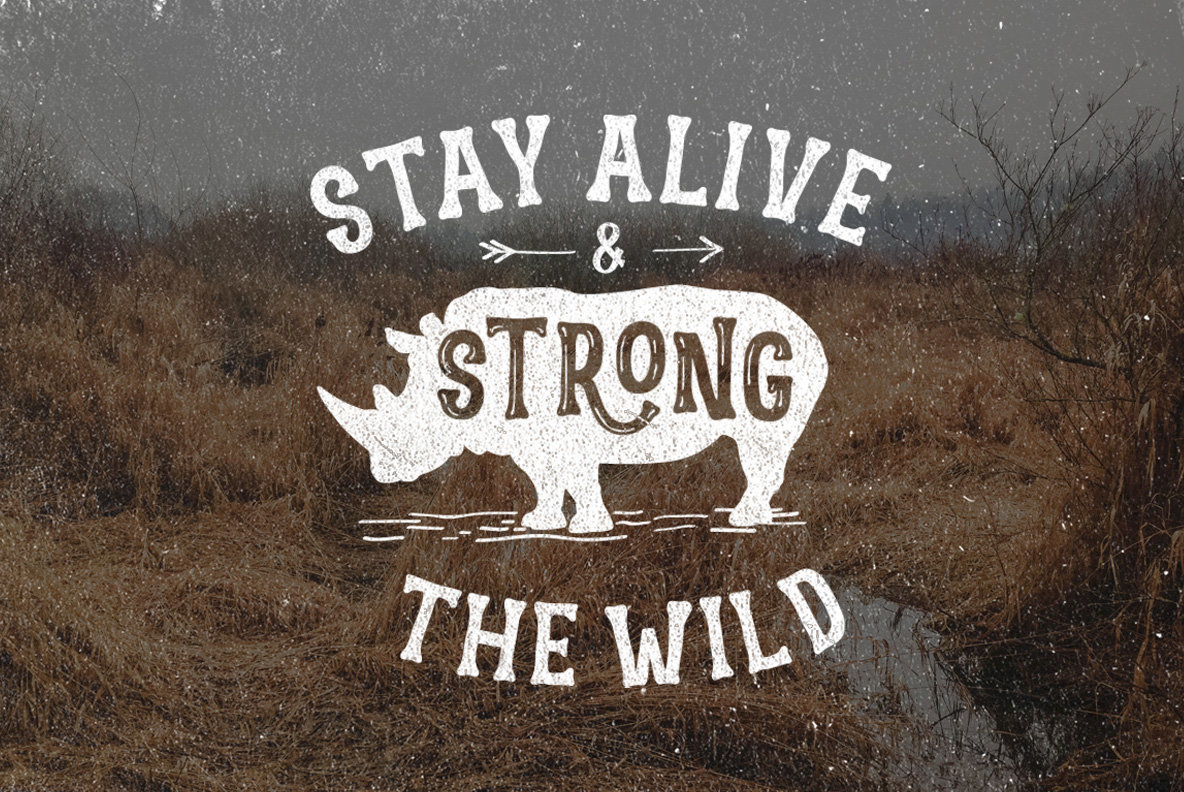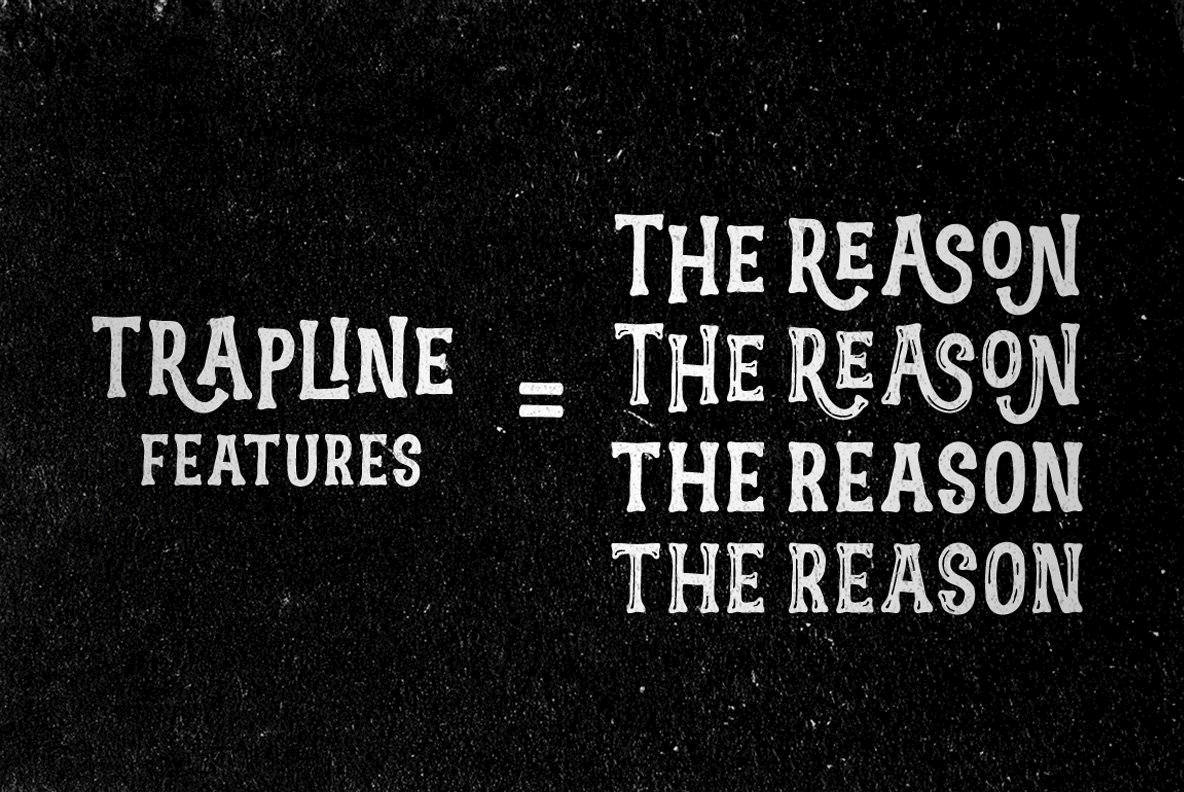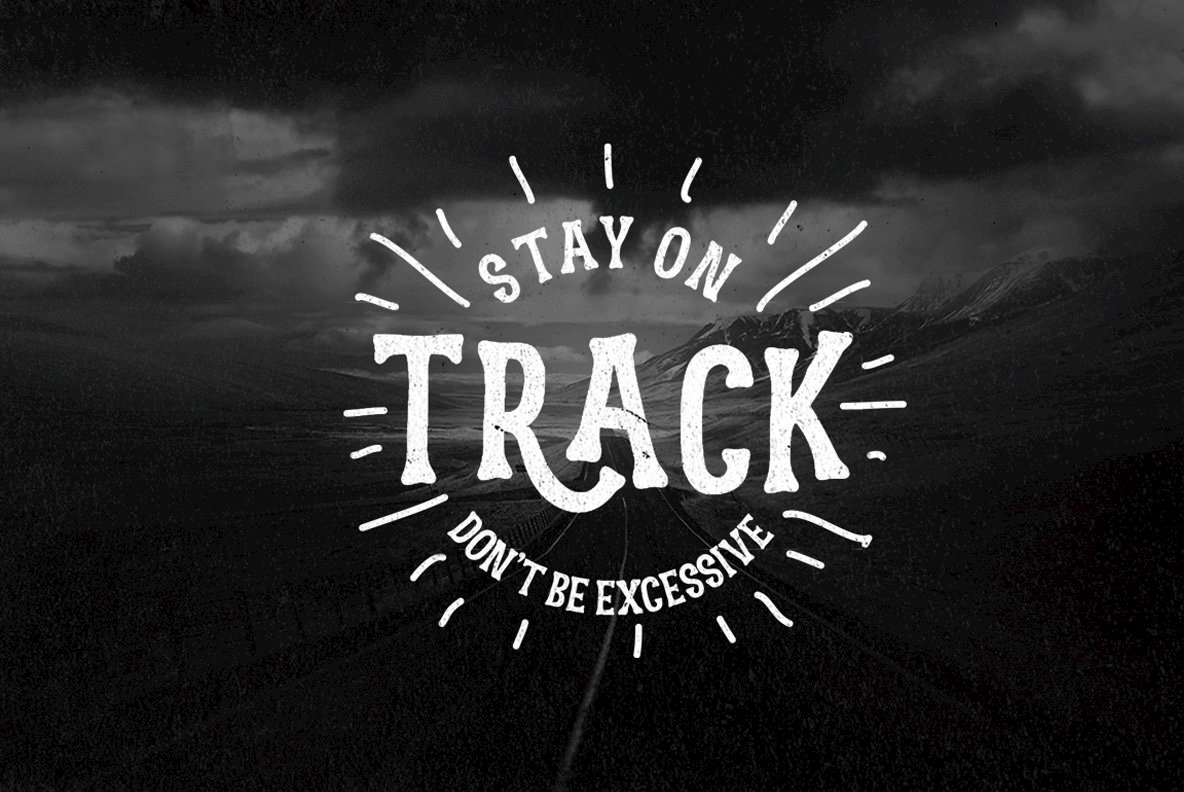
Trapline Font
Trapline Typeface font display is made by hand, inspired by classic posters. With a combination of highly vintage feels and the OpenType features put together on it, you can Easily create an attractive harmonic message for your design. Trapline Typeface comes with 4 variations of each variation combined with uppercase and lowercase letters.